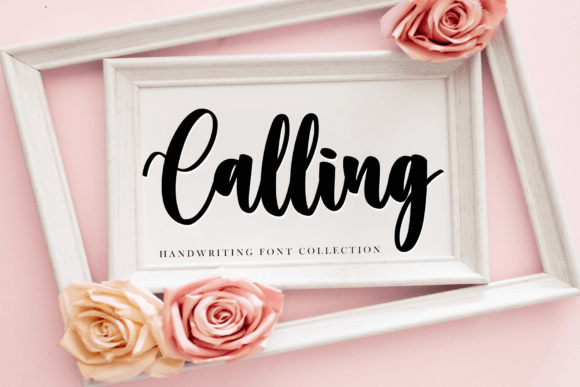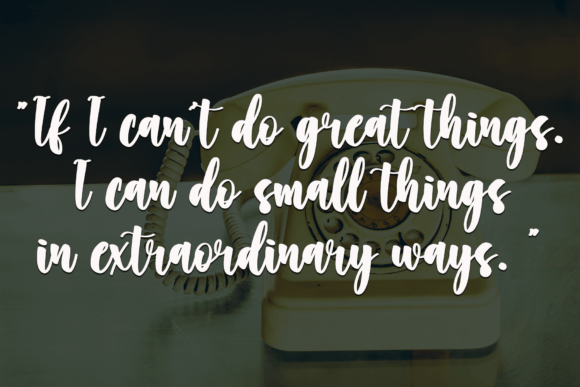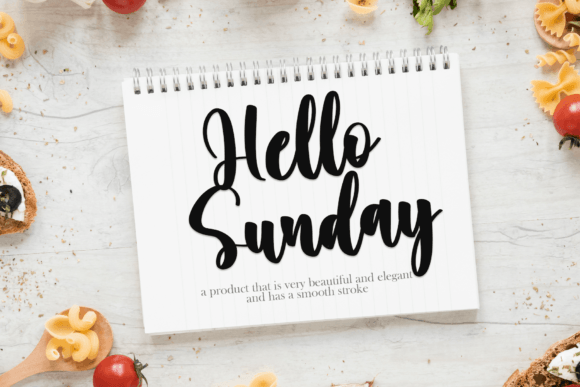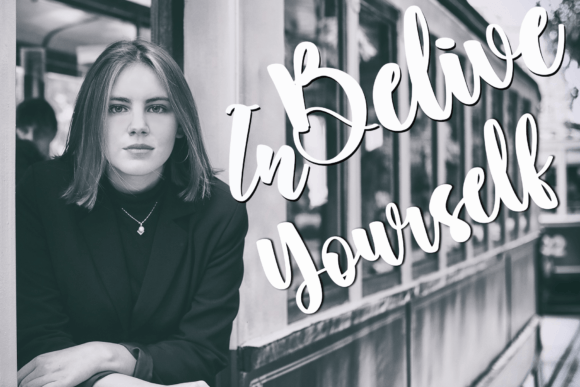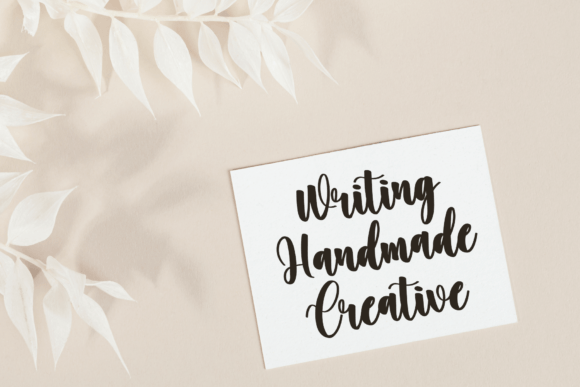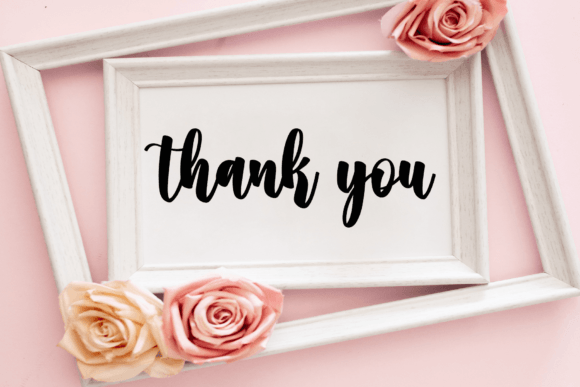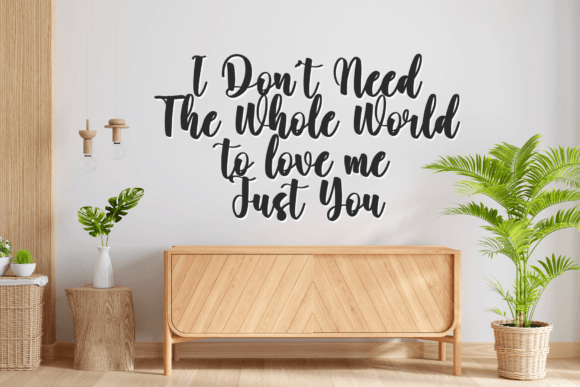
Calling Font
About Calling Font
“Calling” is a dynamic and versatile handwritten font that seamlessly blends fun and sophistication. Its playful yet elegant design allows for a wide range of creative possibilities, making it suitable for various design contexts, from formal to informal projects.
This font’s versatility shines through, making it perfect for both professional and personal use. Its charming handwritten style adds a touch of authenticity and warmth to any design, making it suitable for invitations, greeting cards, posters, social media posts, logos, branding materials, and more.
The lively and expressive strokes of “Calling” make it an instant favorite among designers. Its adaptability allows you to experiment with different design elements, colors, and layouts, enabling you to create visually striking and memorable masterpieces.
Adding “Calling” to your fonts library opens the door to a world of creative possibilities. Its unique character and versatility make it a valuable asset for any designer, ensuring that your projects stand out and leave a lasting impression on your audience. So, whether you’re working on a formal business presentation or a playful party invitation, “Calling” will elevate your designs and add a touch of charm and personality to every project.